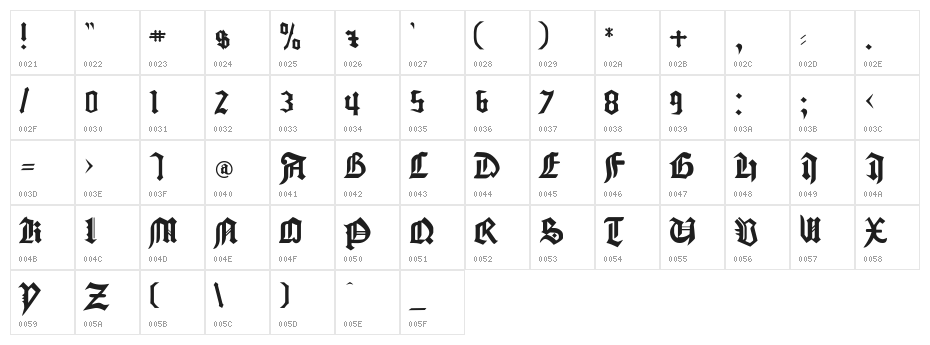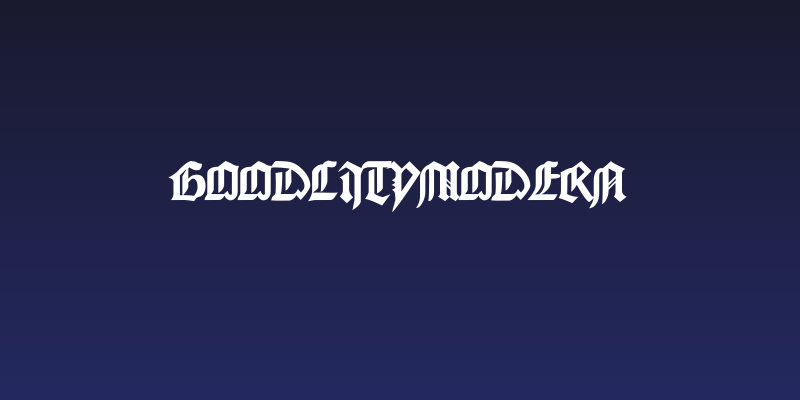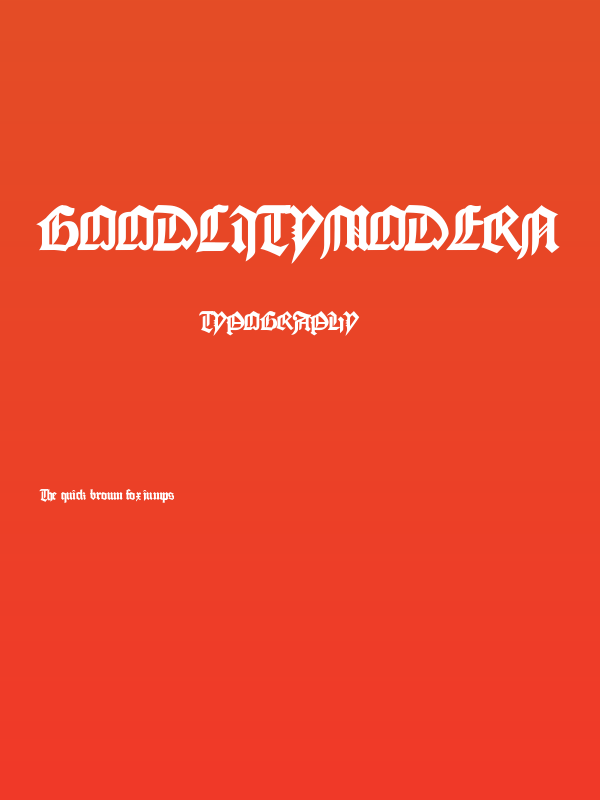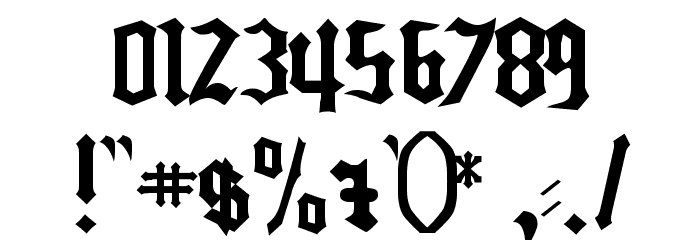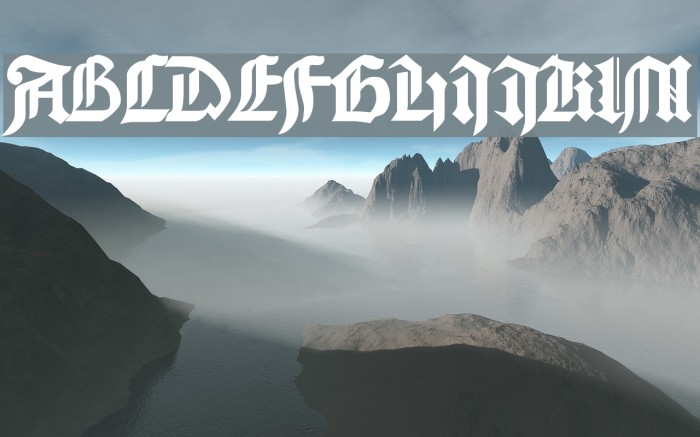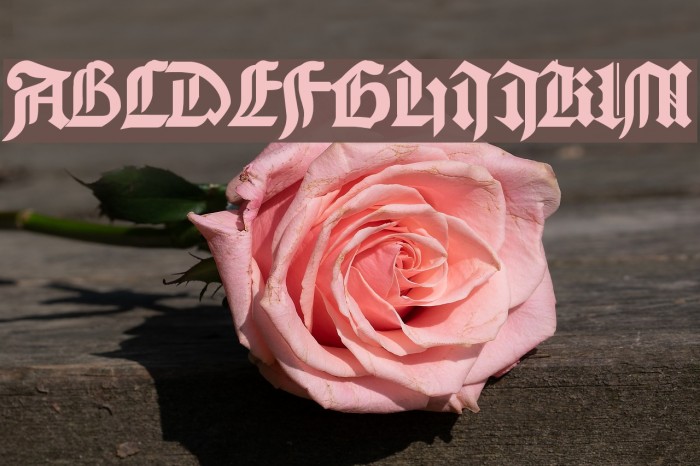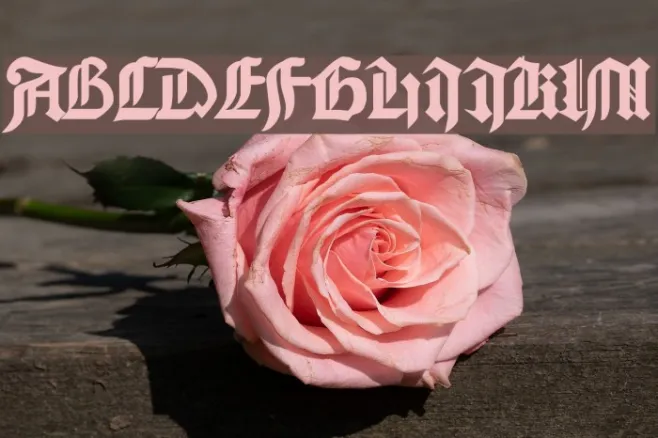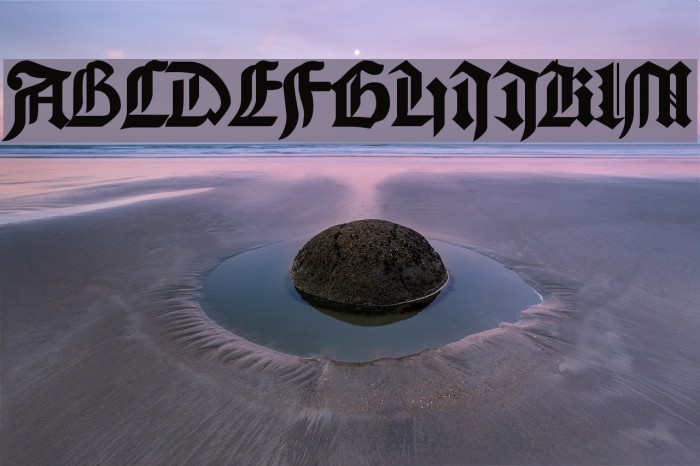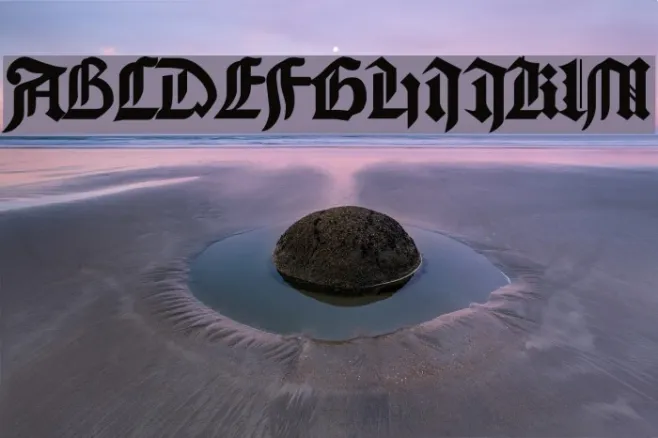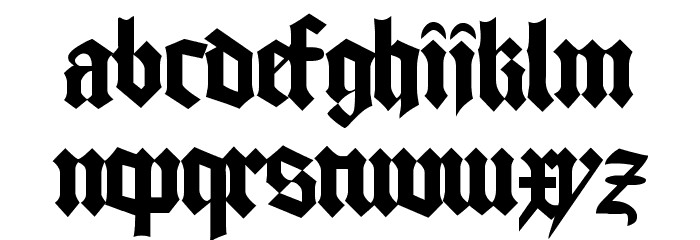
GoodCityModern Font
GoodCityModern Description
This font exhibits a bold and dramatic style, characterized by its sharp, angular lines and intricate detailing reminiscent of traditional Gothic script. The uppercase letters are particularly ornate, with elaborate flourishes that give a sense of historical elegance. The lowercase letters maintain a consistent style, offering a cohesive look across the alphabet. Numbers and special characters are designed with the same attention to detail, ensuring a uniform appearance throughout. The overall aesthetic is both striking and sophisticated, making it suitable for projects that require a touch of classic grandeur.
| Overall Style | Vintage |
| Use Case | Logos, Headlines, Posters |
| Proposed Projects | Ideal for use in branding, logos, posters, and any design work that seeks to evoke a sense of historical elegance and sophistication. |